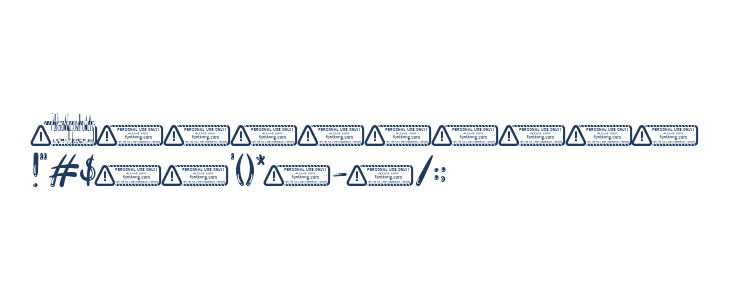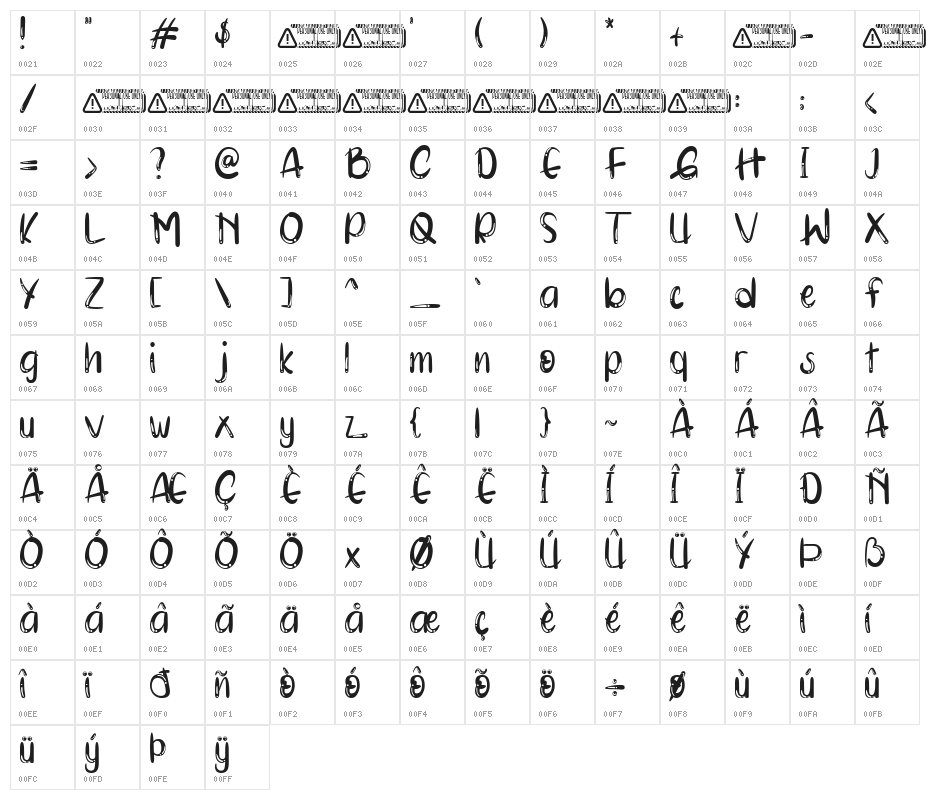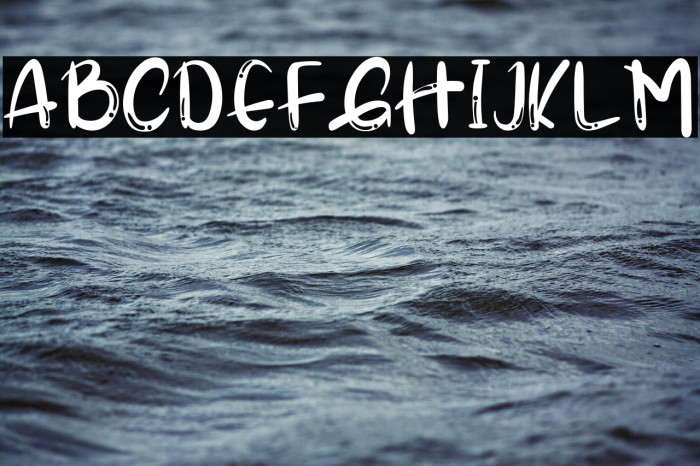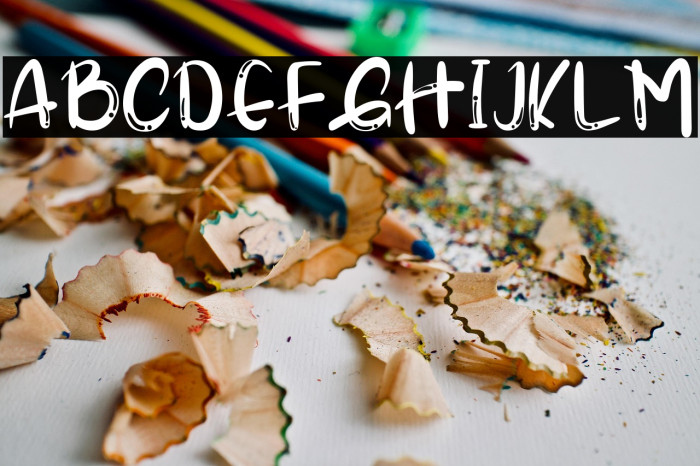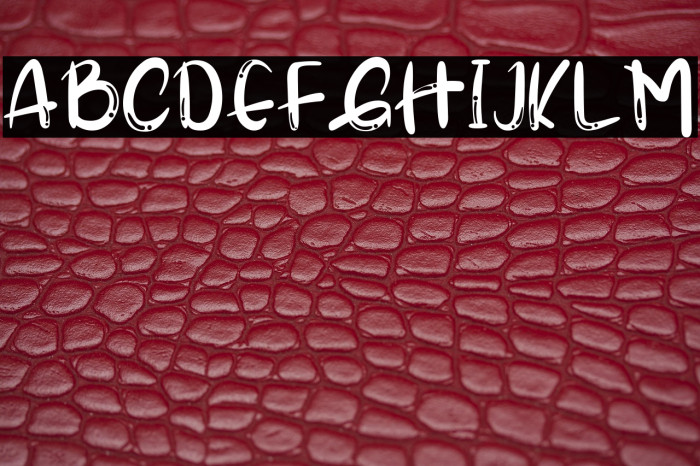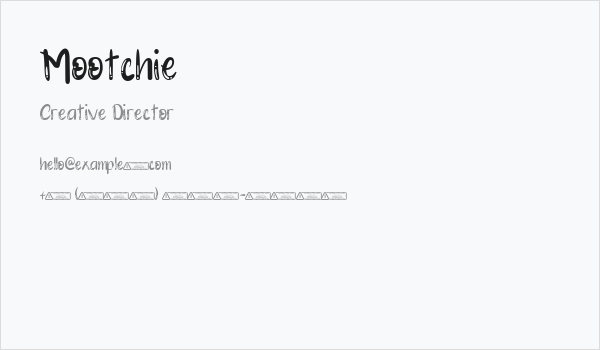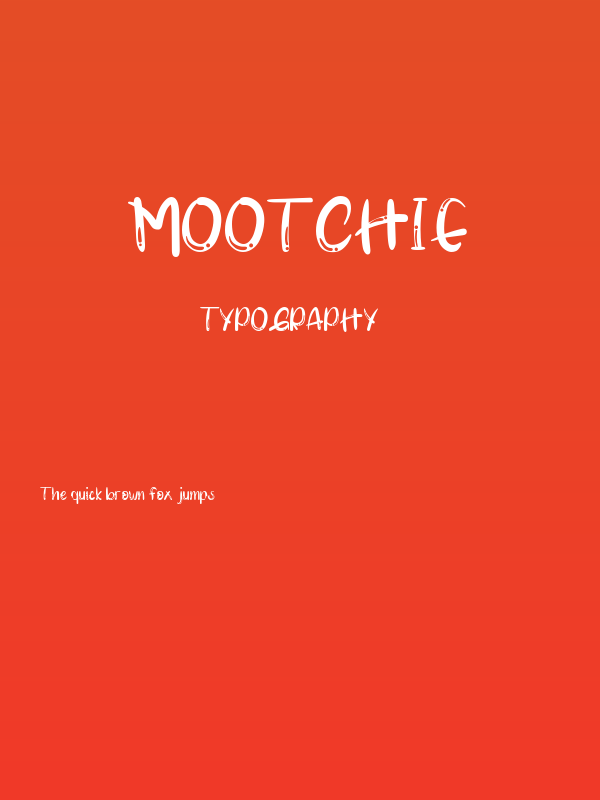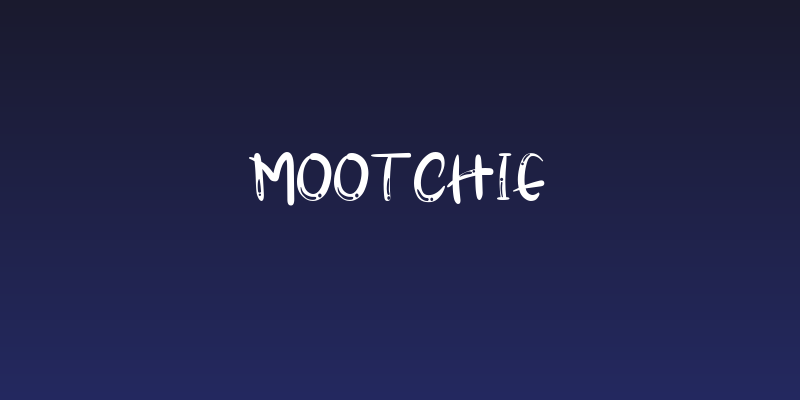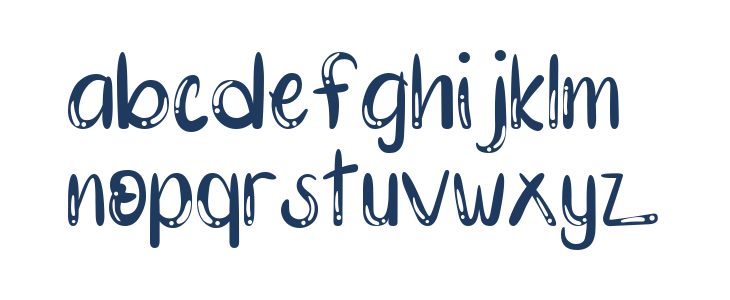
Mootchie Font
Mootchie Description
This playful and whimsical font features a handwritten style with a unique twist. Each letter is crafted with a bold, rounded form, and includes distinctive cut-out circles that add a quirky and artistic flair. The uppercase and lowercase letters maintain a consistent style, creating a cohesive look. The numbers and special characters are designed to match the playful aesthetic, making this font ideal for creative projects. Its bold appearance ensures readability while the decorative elements provide a fun and engaging visual experience.
| Use Case | Logos, Headlines, Posters |
| Proposed Projects | Ideal for children's books, playful branding, greeting cards, and creative posters. |